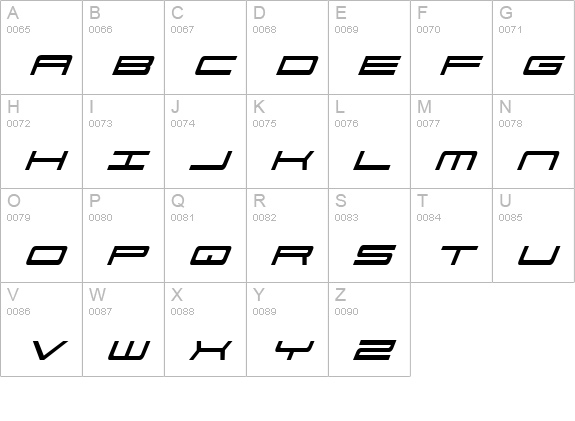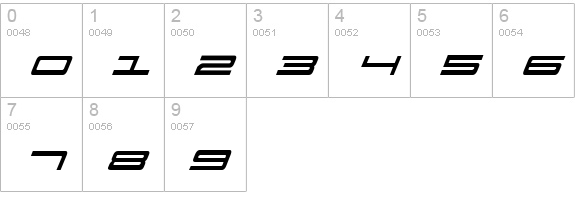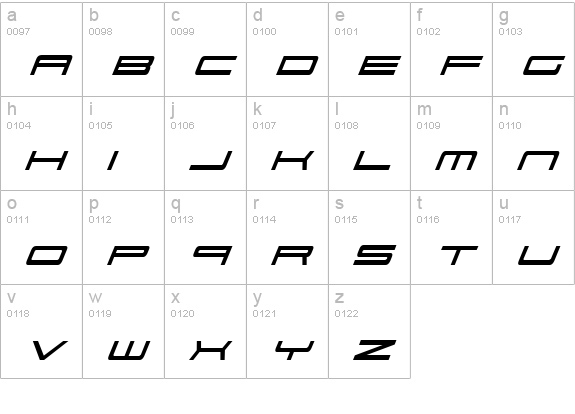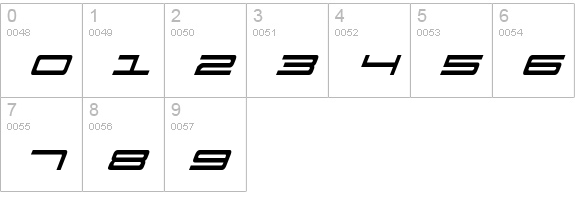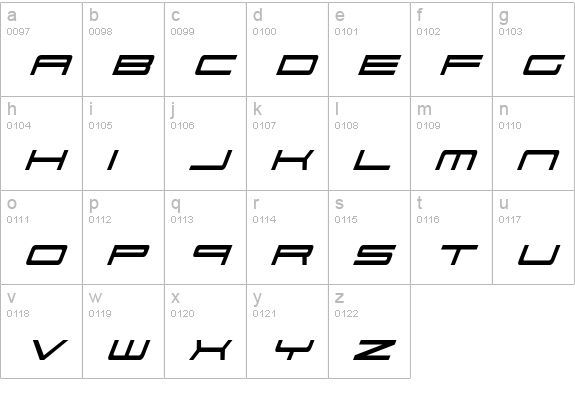
911 Porscha Italic is a distinctive, italic variant in the 911 typeface family \xE2\x80\x94 well suited to design and typography projects.
911 Porscha Italic font is a sleek and stylish typeface that exudes sophistication and elegance. With its bold, slanted design, this font is perfect for adding a touch of modernity to your projects. The sharp lines and unique curves of 911 Porscha Italic make it stand out from the crowd, making it a versatile choice for a wide range of design applications. And the best part? 911 Porscha Italic font is available for free download at FontsMarket.com. This means you can easily access this stunning font and use it in your projects without any cost. Whether you're designing a logo, creating a poster, or working on a website, 911 Porscha Italic font will elevate your design to the next level. Don't miss out on this amazing opportunity to enhance your work with this fabulous font!